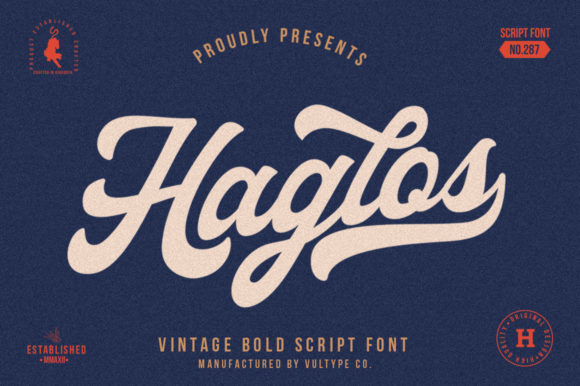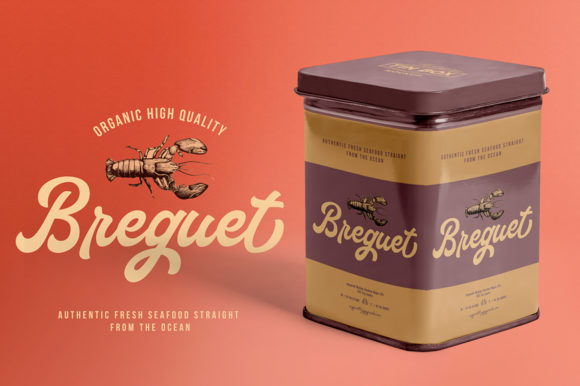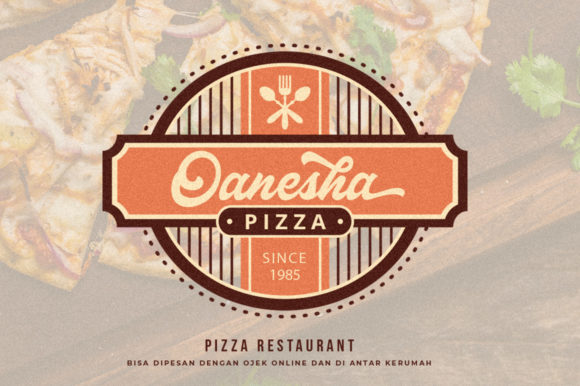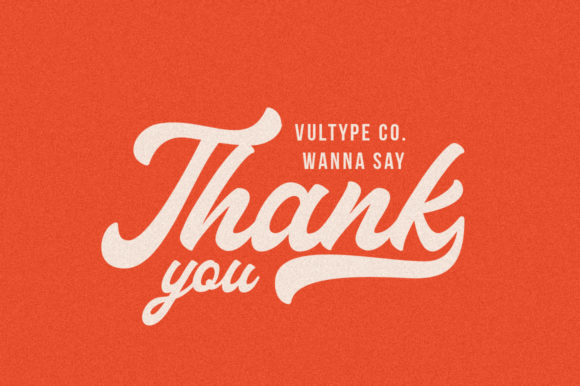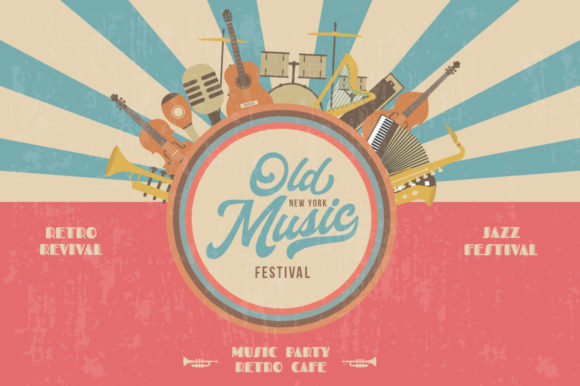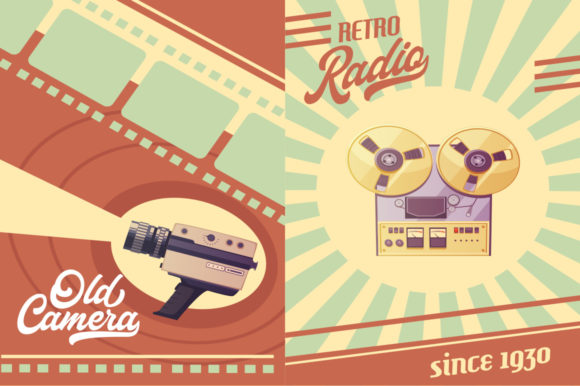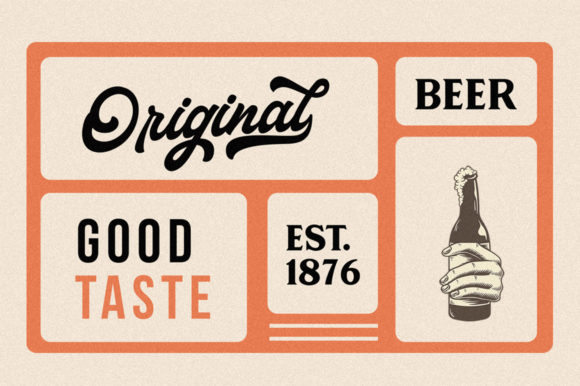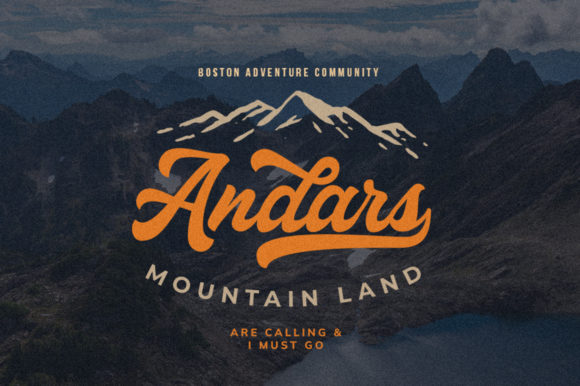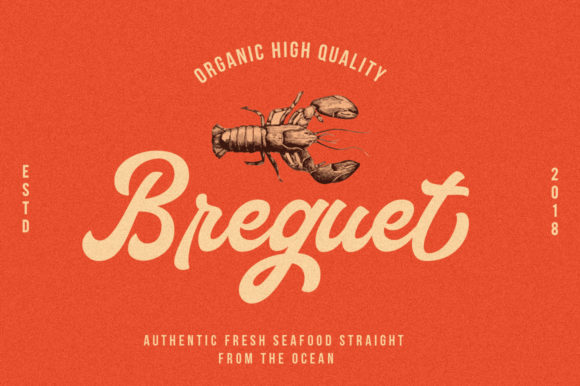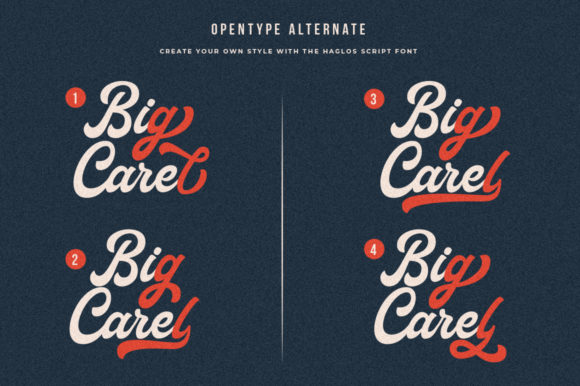
HomeScript FontsHaglos Font Script Fonts Haglos Font FacebookXPinterestWhatsApp Haglos Font Poster 2 Haglos Font Poster 3 Haglos Font Poster 4 Haglos Font Poster 5 Haglos Font Poster 6 Haglos Font Poster 7 Haglos Font Poster 8 Haglos Font Poster 9 Haglos Font Poster 10 Haglos Font Poster 11 Haglos Font Poster 12 Haglos Font Poster 13 Haglos Font Poster 14 About Haglos Font Haglos is a vintage script with a beautiful look. It features bold and smooth curves and great legibility! DOWNLOAD ON CREATIVE FABRICAThis font is sold and delivered by Creative Fabrica. Font Canyon may earn a commission if you buy through this link. People also explored Fontmageddon Constaline Font Lovely Natasya Font Rutfle June Extra Bold Font Hikata Font Soccer Uniform Mockup Molynia Font BanDai-Muan Font Gazpacho Font 317 0 TagsHaglos Font Previous articleJavinka FontNext articleRiver Font LEAVE A REPLY Cancel reply Comment: Please enter your comment! Name:* Please enter your name here Email:* You have entered an incorrect email address! Please enter your email address here Website: Save my name, email, and website in this browser for the next time I comment. Personal Use Free Lovely Girl Personal Use Free Read more about this font Angola Beach Personal Use Free Read more about this font Cokobi Personal Use Free Read more about this font Rafika Personal Use Free Read more about this font BLOG Using Fonts in Digital Marketing: Tips to Strengthen Your Brand Identity In the realm of digital marketing, every visual element plays a crucial role in shaping a brand's identity, and fonts are no exception. The... Top 10 Handwritten Fonts That Elevate Your Designs Fonts That Capture the Spirit of New York City 5 Fonts That Will Dominate Design Trends in 2026